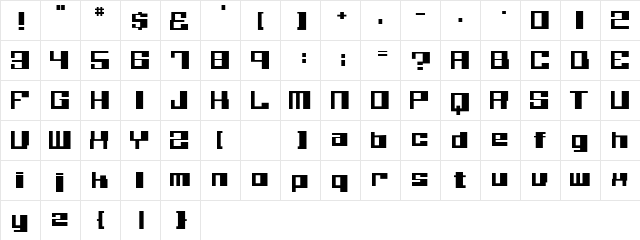
Believer Eng
Design Context for Believer Typeface
Believer is a composed and adaptable typeface that performs quietly and consistently across a wide range of design contexts.